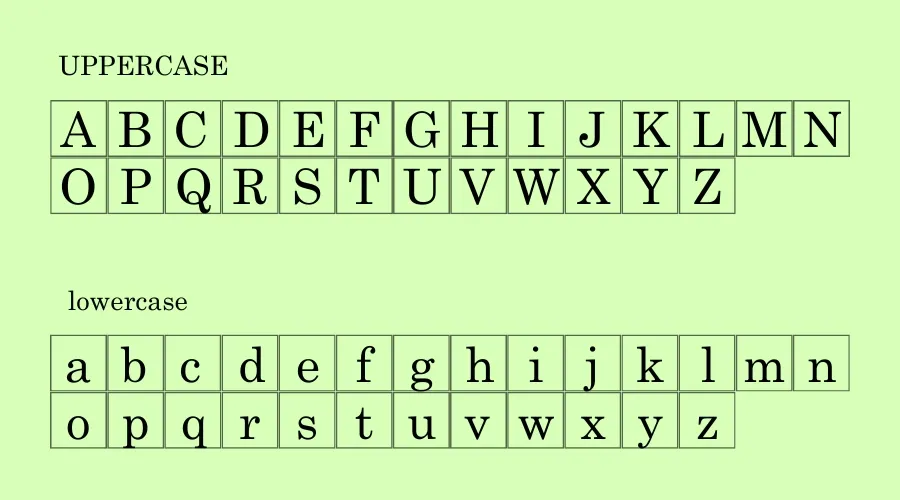
Linn Boyd and Morris Fuller Benton created Century Font which is a serif style. It is a cooler typeface family appropriate for a variety of projects. Its visual arts generation tool is quite traditional. Because of its distinctive and fashionable appearance.
A typeface is mainly well-known today. It is being used by numerous developers to produce distinctive and fascinating designs. Your creation will certainly benefit from the use of this classy typeface. This typeface is similar to the rotis sans serif font.
In the past, many experts have utilized it to create websites. The genuine typeface, or any of its sizes and variants, can be used while creating your next website. This will give the design a fashionable and attractive touch.